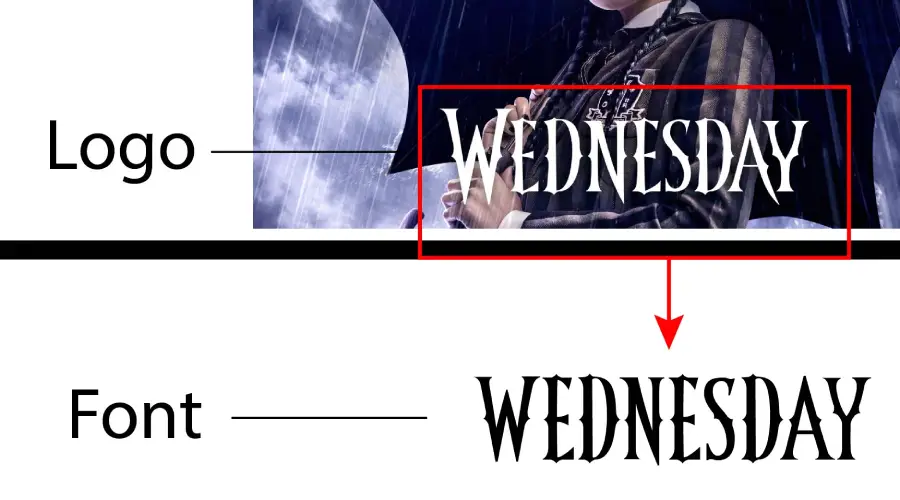
Wednesday Font
Are you a designer and a fan of the Wednesday Netflix show? Are you looking for Wednesday font, also called Wednesday Addams font? Look no further!
Wednesday logo vs Wednesday Font Similarity
The popular Wednesday Netflix show used a custom font for the show, but a fan replicated the font. It is named after the show and called Wednesday Font. You can download it for free for personal use.
Wednesday logo vs Lost Font Similarity
If you want a similar look, then try Lost Font! This font has similar shapes and characteristics, but the letters have a wider width. You can use it to create Halloween-themed projects, horror stories, or anything with mystery and suspense.
To Wrap It Up,
Wednesday font is a great choice for anyone who loves the Netflix show Wednesday or the Addams Family. Although the original font is custom-made, there is a fan-made font available. You can also use Lost font to make your design different and stand out. You can try the fonts and customize them with our font generator.